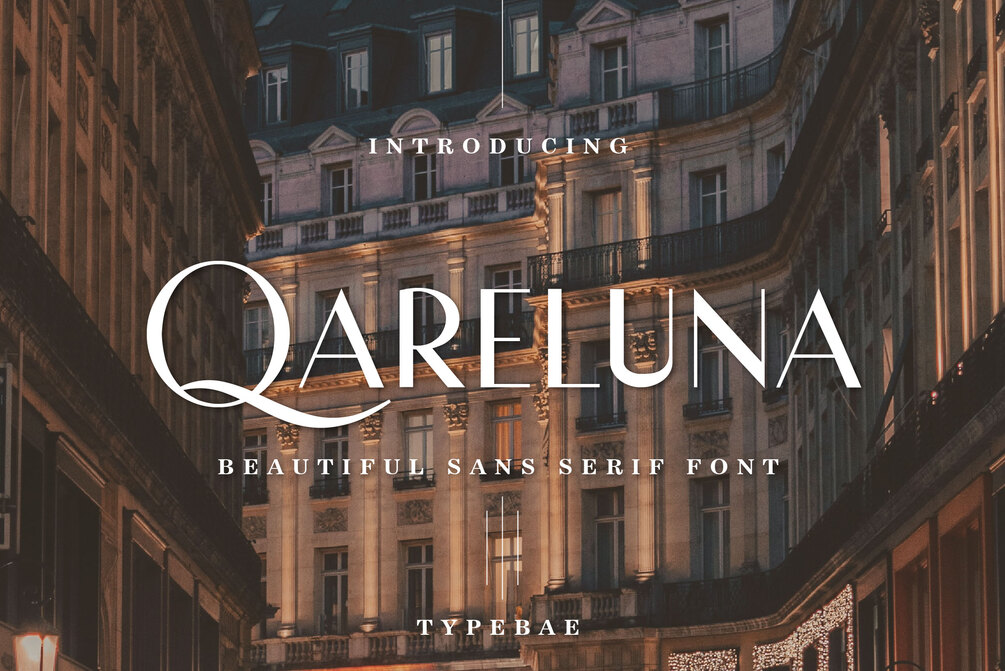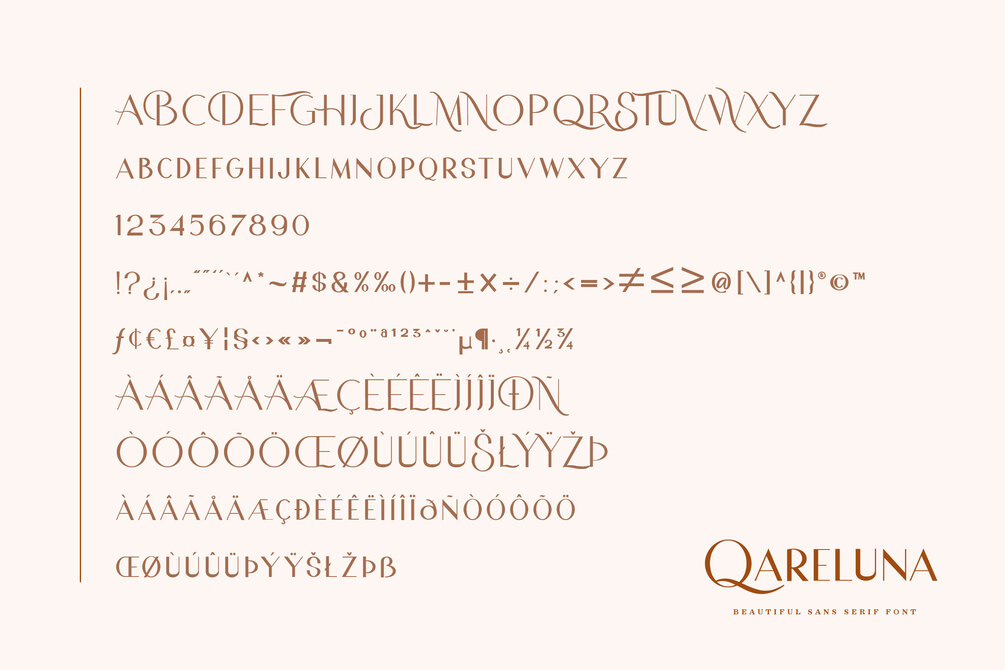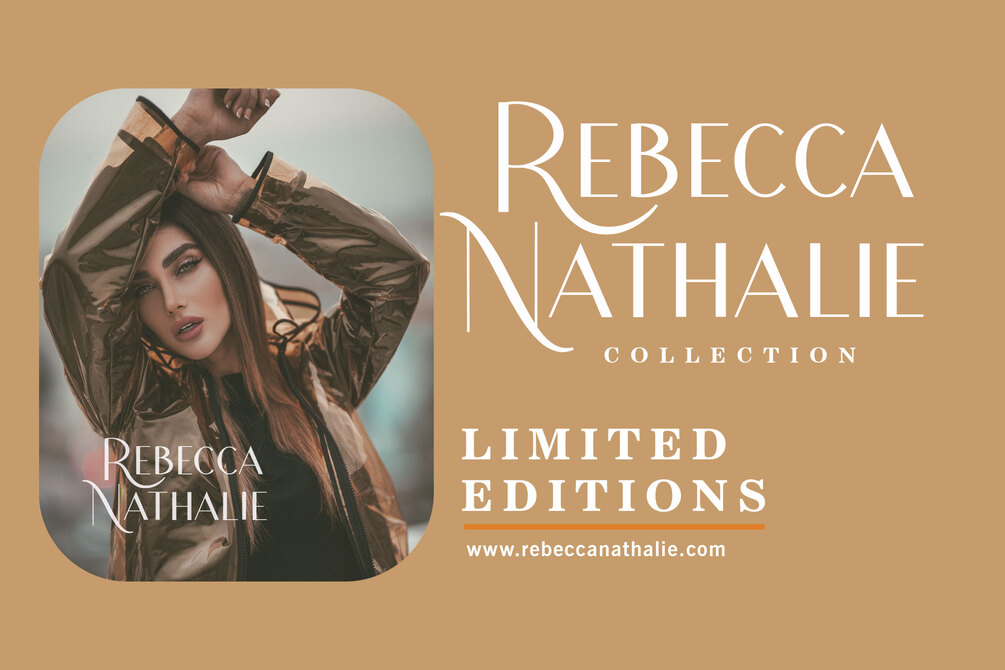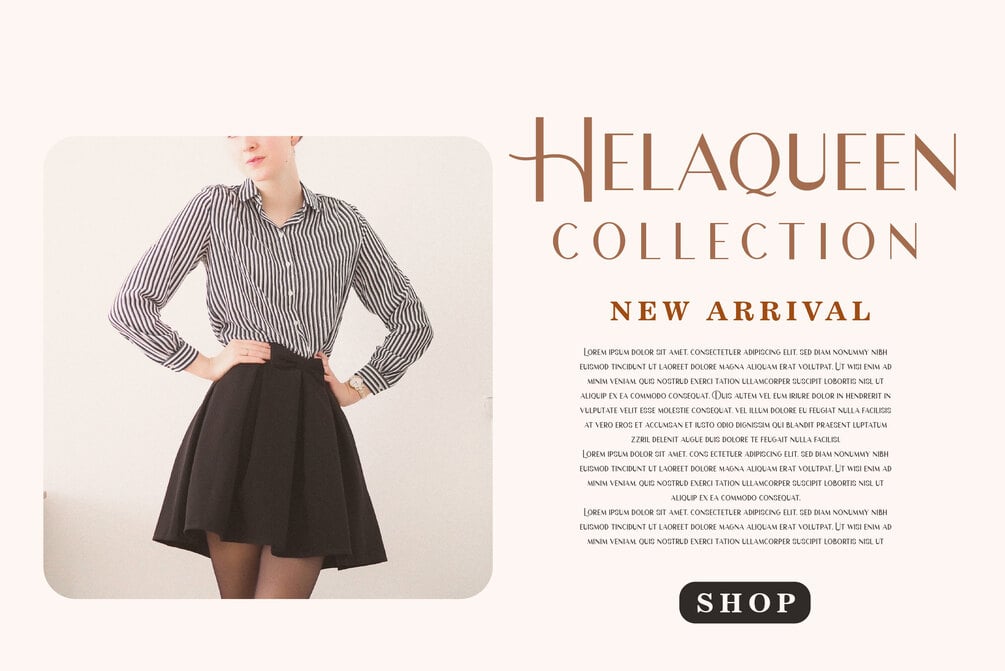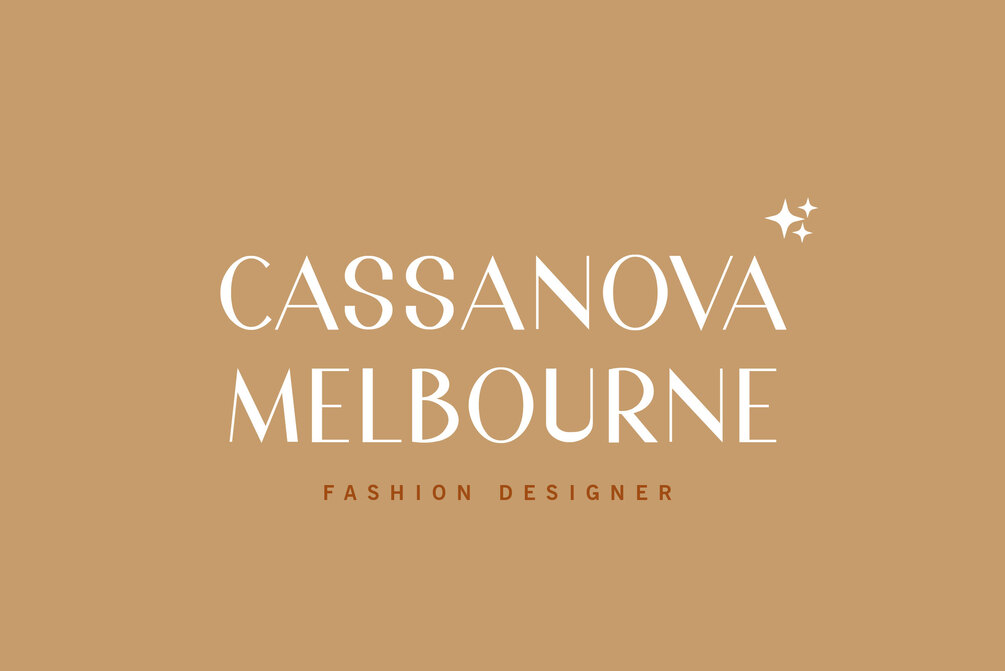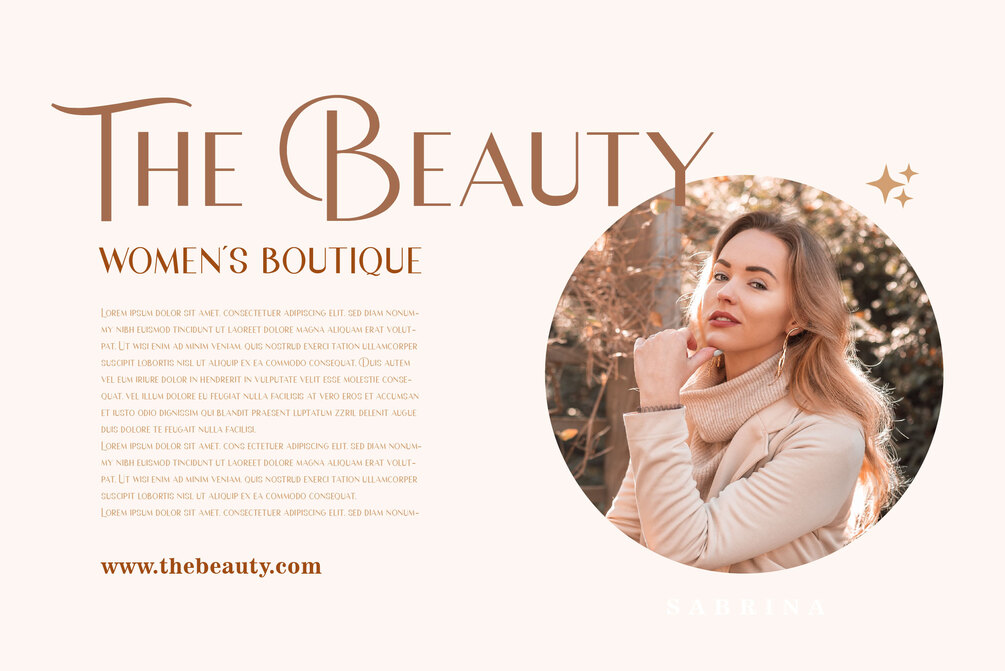
Qareluna
Qareluna is a beautiful and elegant sans serif font. Suitable to a wide variety of designs due to its neat and simple style, this font has the potential to become your favorite go-to font, no matter the occasion!
- Uppercase & Lowercase
- Numbers & Punctuation
- Multilingual Support
- Regular & Italic